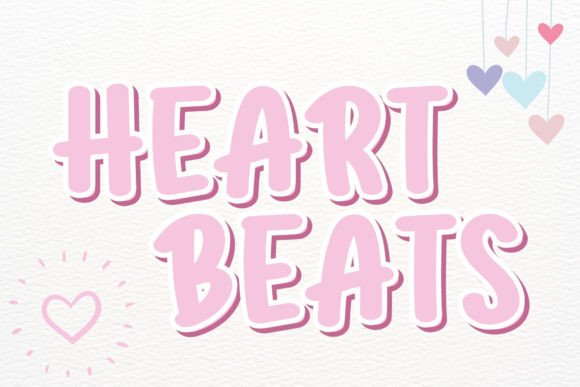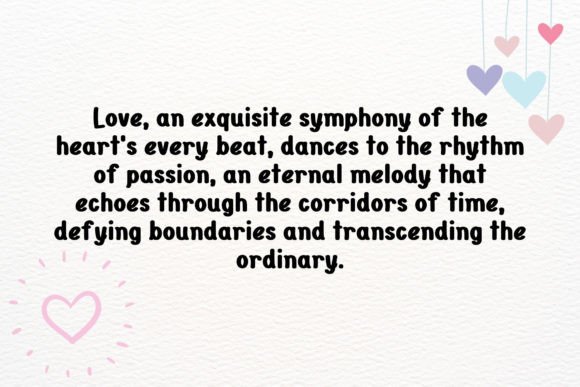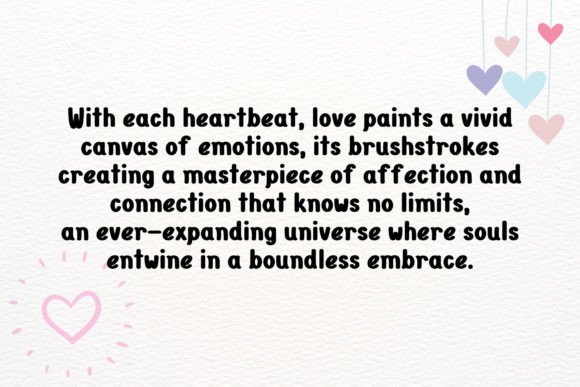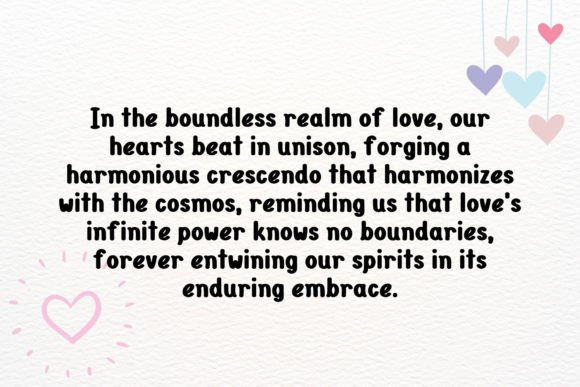
Heart Beats Font: A Cute Display Font for Cricut & DIY Projects
About the Heart Beats Font
Crafted with precision, the Heart Beats Font is ready to bring your ideas to life. Unlock the power of “Heart Beats” – a delightful handwritten font that captures the essence of beauty, grace, and cuteness in every stroke. This font is designed to infuse your projects with a touch of whimsy and warmth, making it perfect for a wide range of creative endeavors.
Heart Beats excels in projects requiring a touch of playful charm. It’s ideally suited for headlines, short quotes, logos for brands targeting a younger demographic, and packaging for products emphasizing sweetness or handmade quality. Avoid using it for large blocks of body text or UI elements; its handwritten nature compromises readability in extended use.
Pairing Heart Beats with a clean sans-serif like Open Sans for body copy creates a strong visual hierarchy. For a more sophisticated feel, consider pairing it with a delicate serif font such as Lora. Alternatively, a geometric sans-serif like Montserrat can add a modern counterpoint to its whimsical energy.
The overall personality of Heart Beats is undeniably friendly and approachable, conveying warmth and a sense of handcrafted authenticity. Its lighthearted nature makes it unsuitable for projects demanding seriousness or professionalism.
Heart Beats Font Usage Examples
Heart Beats Font Example